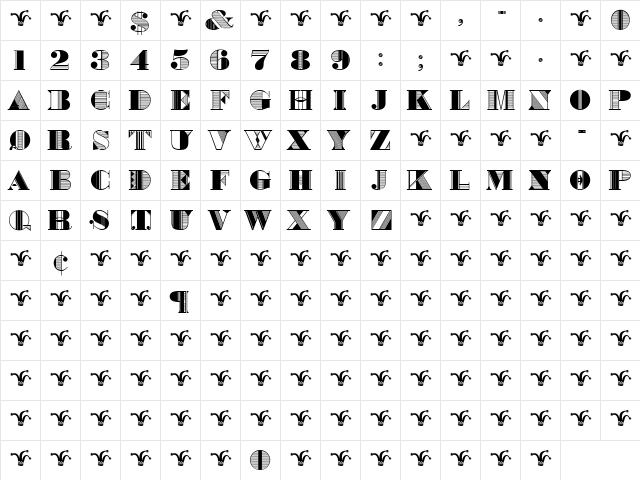
Bradley Regular
| Foundry | Glenda de Guzman. Designed by Glenda de Guzman. Produced by The Font Bureau, Inc |
Design Context for Bradley Typeface
Bradley is a composed and adaptable typeface that performs quietly and consistently across a wide range of design contexts.